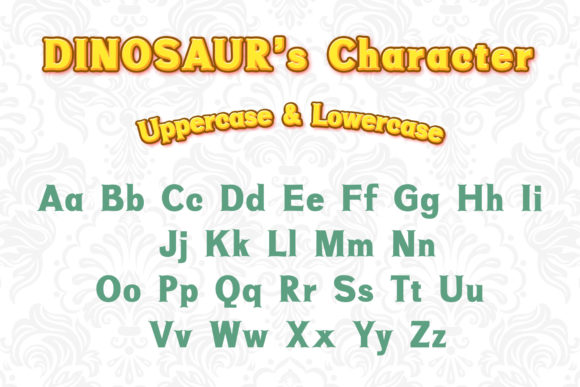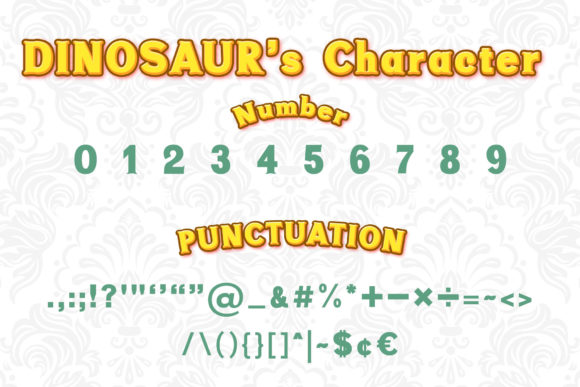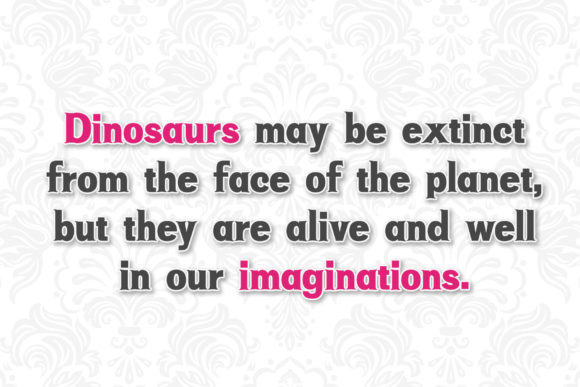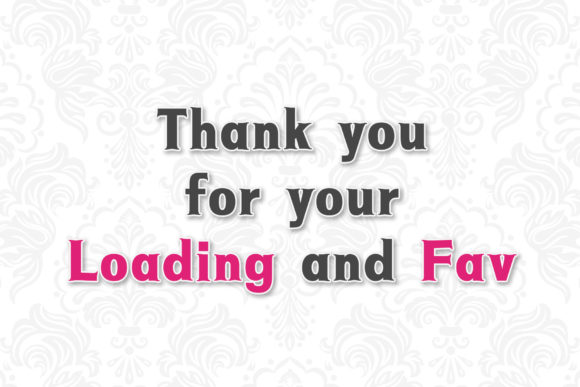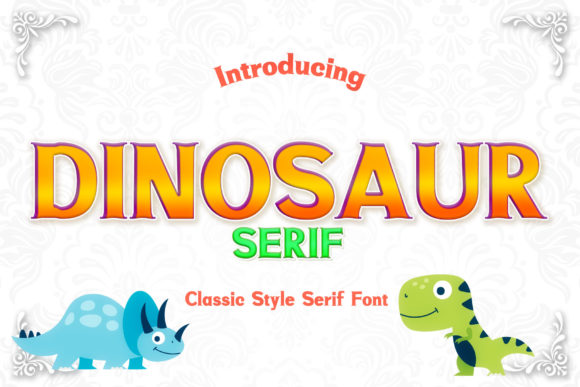
Dinosaur Font: The Prehistoric Choice for Bold Designs
Are you looking for a font that can add a touch of prehistoric flair to your designs? Look no further than the Dinosaur Font! This bold and chunky lettered serif font is perfect for making your creative projects stand out from the crowd. With its rugged and adventurous vibe, Dinosaur Font is sure to transport your audience back in time to an era of mighty beasts and ancient landscapes.
What is Dinosaur Font?
Dinosaur Font is a bold and chunky lettered serif font that can easily be matched to an incredibly large set of projects. Its unique design features make it perfect for a wide range of applications, from crafting eye-catching headlines to creating engaging titles for books, magazines, and more. Whether you’re a designer, crafter, or simply a DIY enthusiast, Dinosaur Font is sure to become a valuable addition to your creative toolkit.
Key Features of Dinosaur Font
- Bold and Chunky Design: Dinosaur Font features a bold and chunky design that is sure to grab attention.
- Serif Font: The font features traditional serif elements, adding a touch of sophistication to its rugged design.
- Highly Versatile: Dinosaur Font can be used for a wide range of projects, from signage and posters to book titles and craft projects.
- Easily Readable: Despite its bold design, Dinosaur Font is surprisingly easy to read, making it perfect for both headlines and body text.
Uses for Dinosaur Font
Dinosaur Font is an incredibly versatile font that can be used for a wide range of projects. Here are just a few ideas to get you started:
- Signage and Posters: Use Dinosaur Font to create eye-catching signs and posters that are sure to grab attention.
- Book Titles and Covers: Add a touch of prehistoric flair to your book titles and covers with Dinosaur Font.
- Craft Projects: Dinosaur Font is perfect for a wide range of craft projects, from scrapbooking to card making.
- Logos and Branding: Use Dinosaur Font to create bold and memorable logos and branding elements.
Tips for Using Dinosaur Font
Here are a few tips for getting the most out of Dinosaur Font:
- Use it Sparingly: While Dinosaur Font is bold and attention-grabbing, it can also be overwhelming if used too much. Use it sparingly to create emphasis and add visual interest.
- Pair it with Other Fonts: Dinosaur Font pairs well with a wide range of other fonts, from traditional serif fonts to modern sans-serif fonts.
- Experiment with Colors: Dinosaur Font looks great in a wide range of colors, from bold and bright to subtle and muted.
In conclusion, Dinosaur Font is a bold and chunky lettered serif font that is sure to add a touch of prehistoric flair to your designs. With its rugged and adventurous vibe, Dinosaur Font is perfect for a wide range of projects, from signage and posters to book titles and craft projects. Whether you’re a designer, crafter, or simply a DIY enthusiast, Dinosaur Font is sure to become a valuable addition to your creative toolkit.